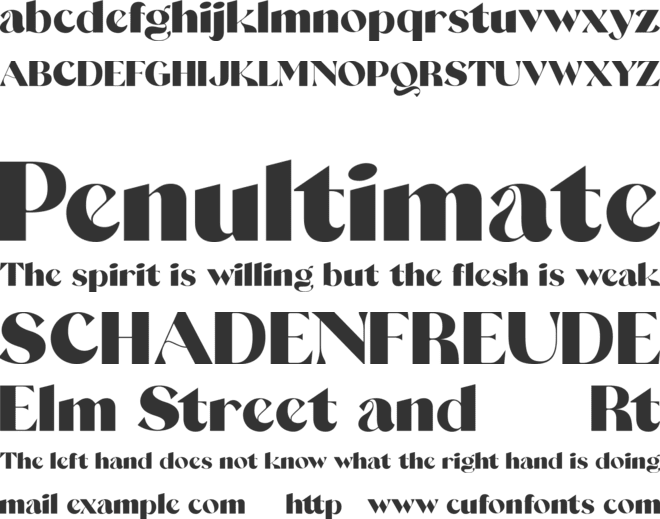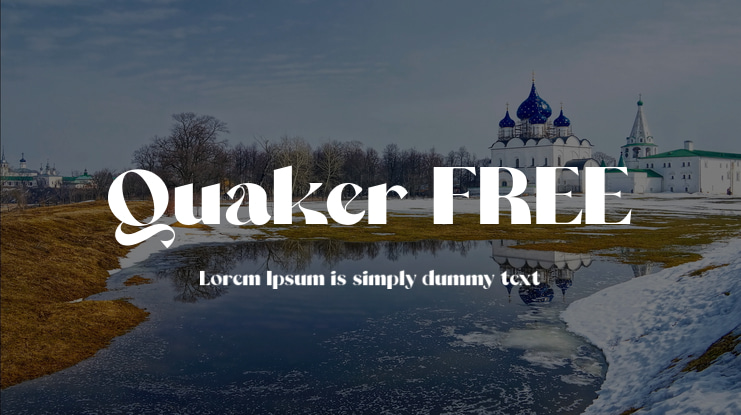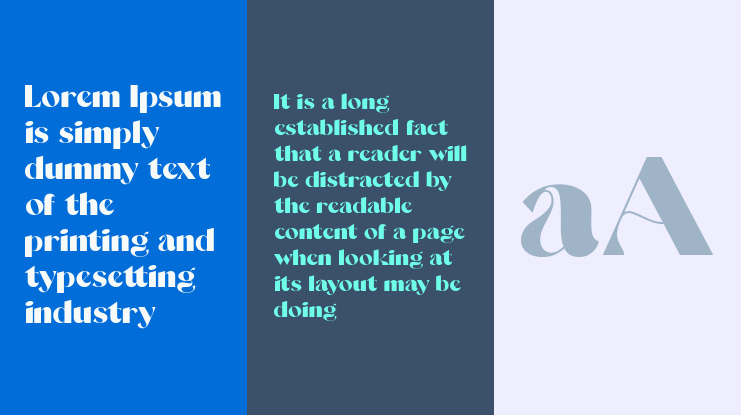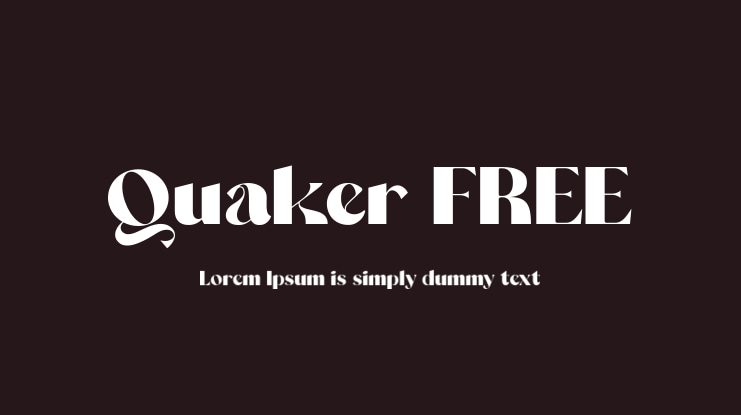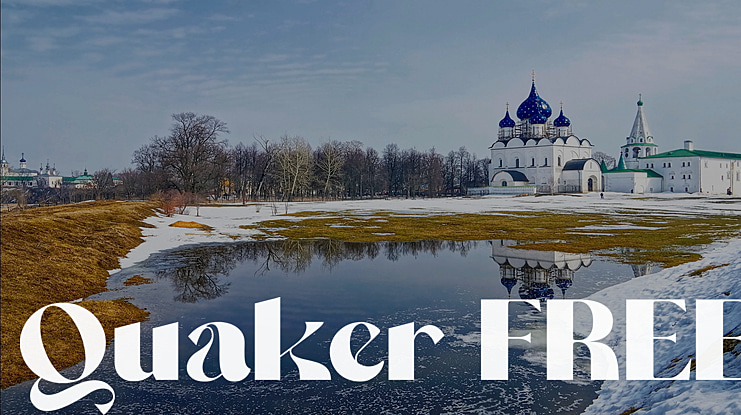
Quaker FREE Font
This is a fashionable typeface that is both retro and bold. Its thick curves give it a 70s groovy vibe, while the serifs bring it back to traditional. Fall for its ravishing style and use it to create gorgeous wedding invitations, beautiful stationary art, eye-catching social media posts, and much more! Natalie is PUA encoded which means you can access all glyphs and swashes with ease!